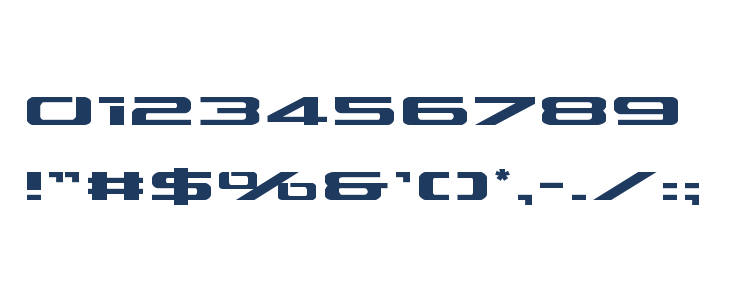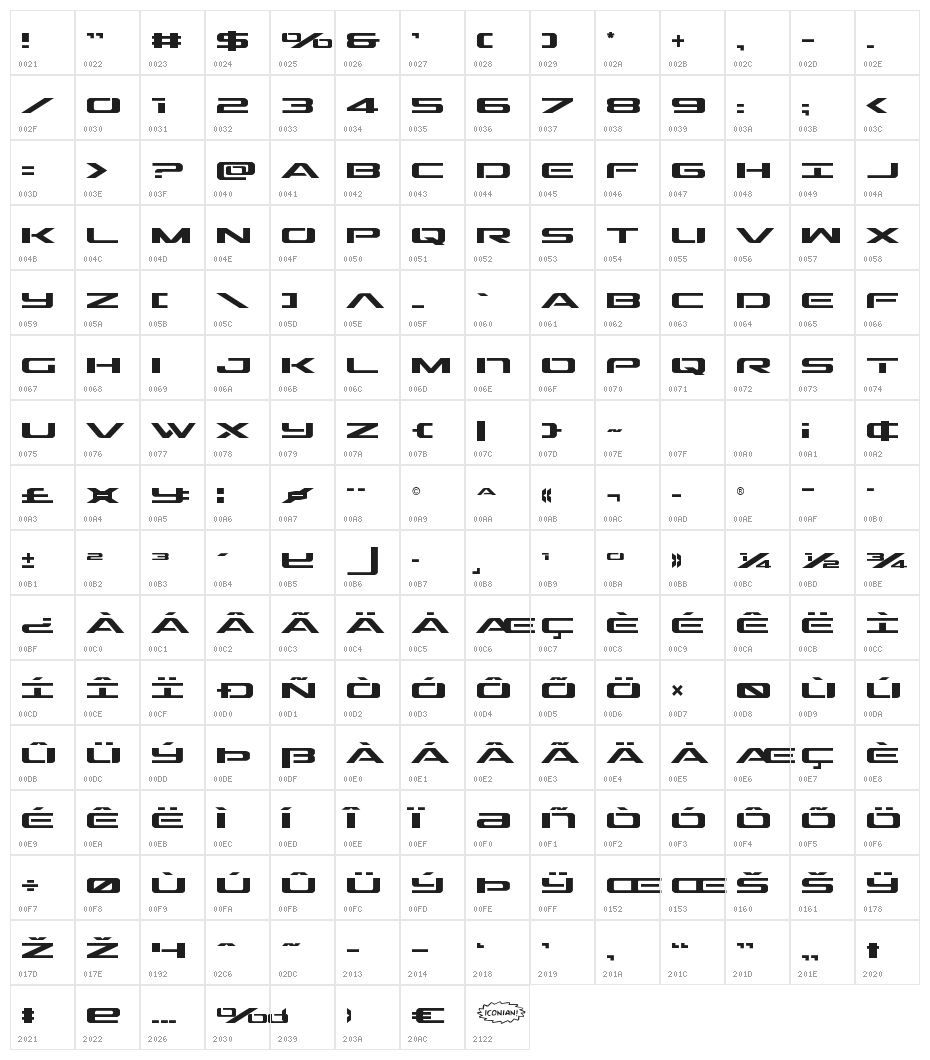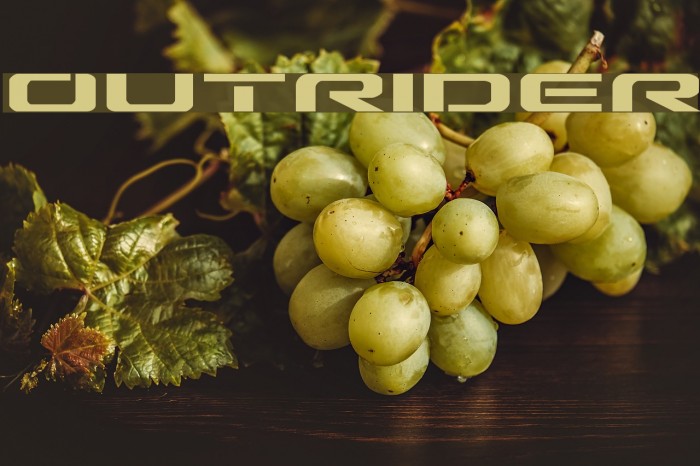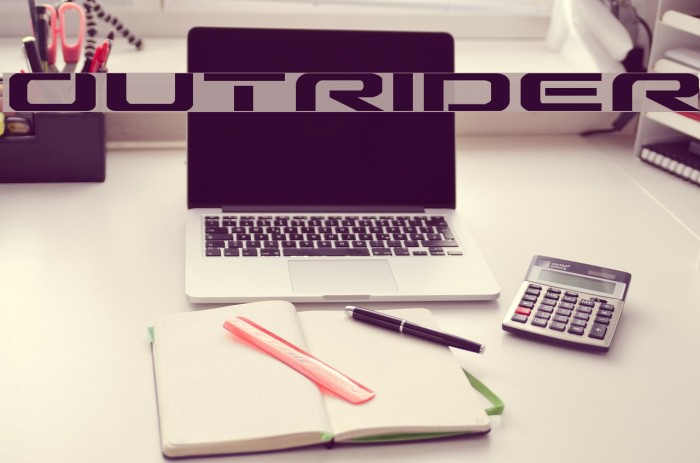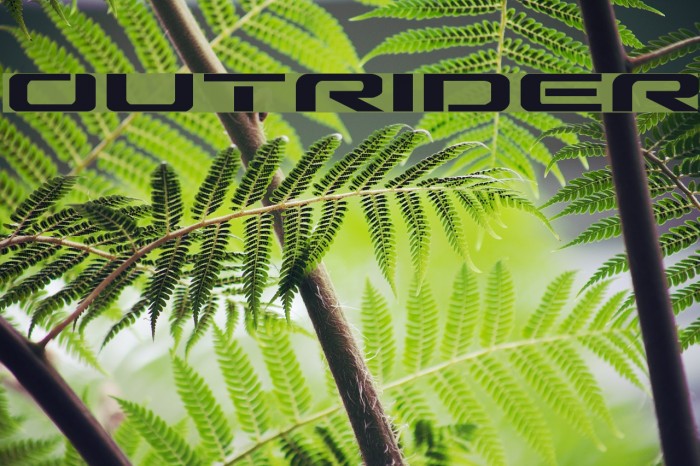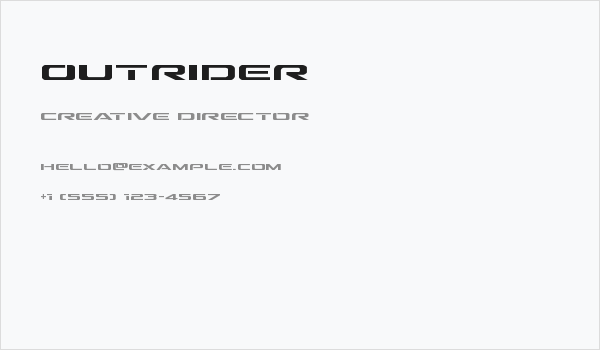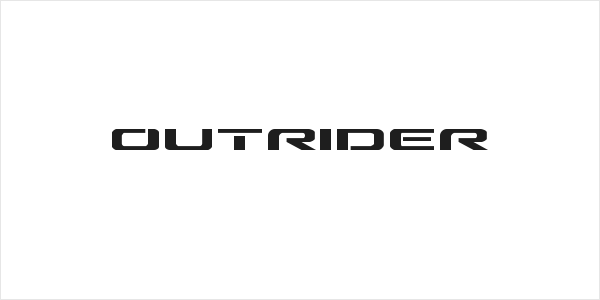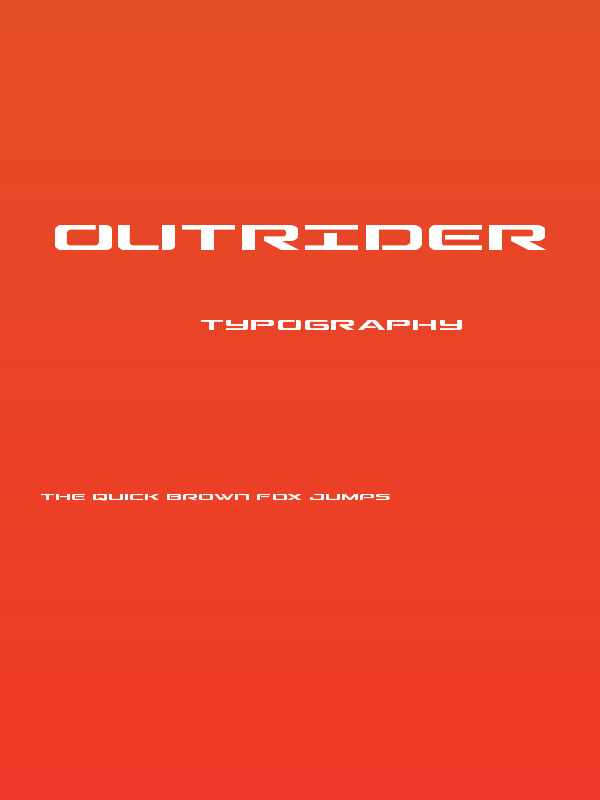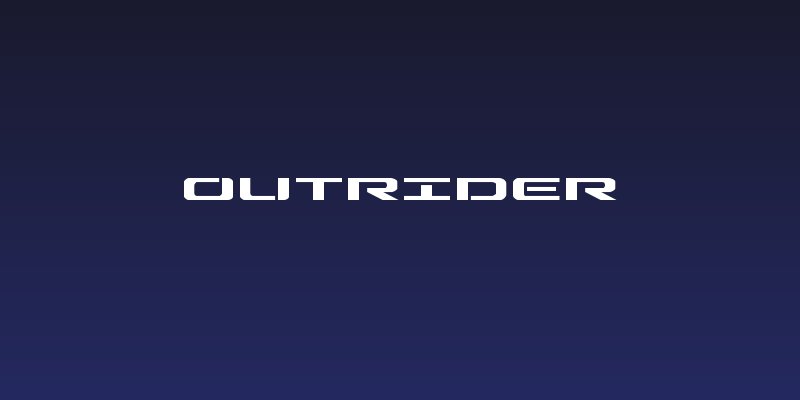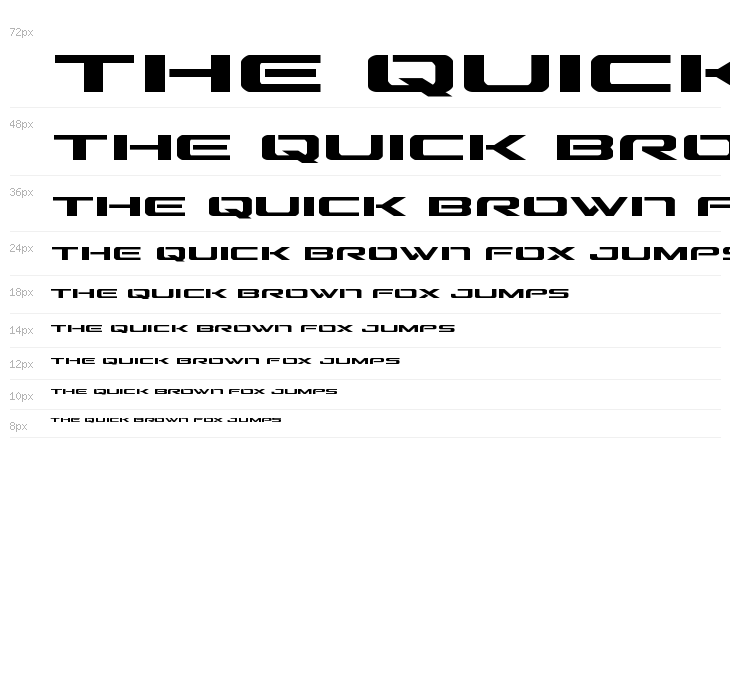
Outrider Font
Outrider Description
This font features a futuristic and angular design, characterized by sharp edges and a geometric structure. The uppercase letters are bold and wide, giving a strong presence, while the lowercase letters maintain a consistent style with slightly more rounded edges. The numerals are distinct and align well with the overall aesthetic, providing a cohesive look. Special characters are designed to match the angular theme, ensuring uniformity across all glyphs. The font's modern and sleek appearance makes it suitable for projects that require a contemporary and tech-savvy feel.